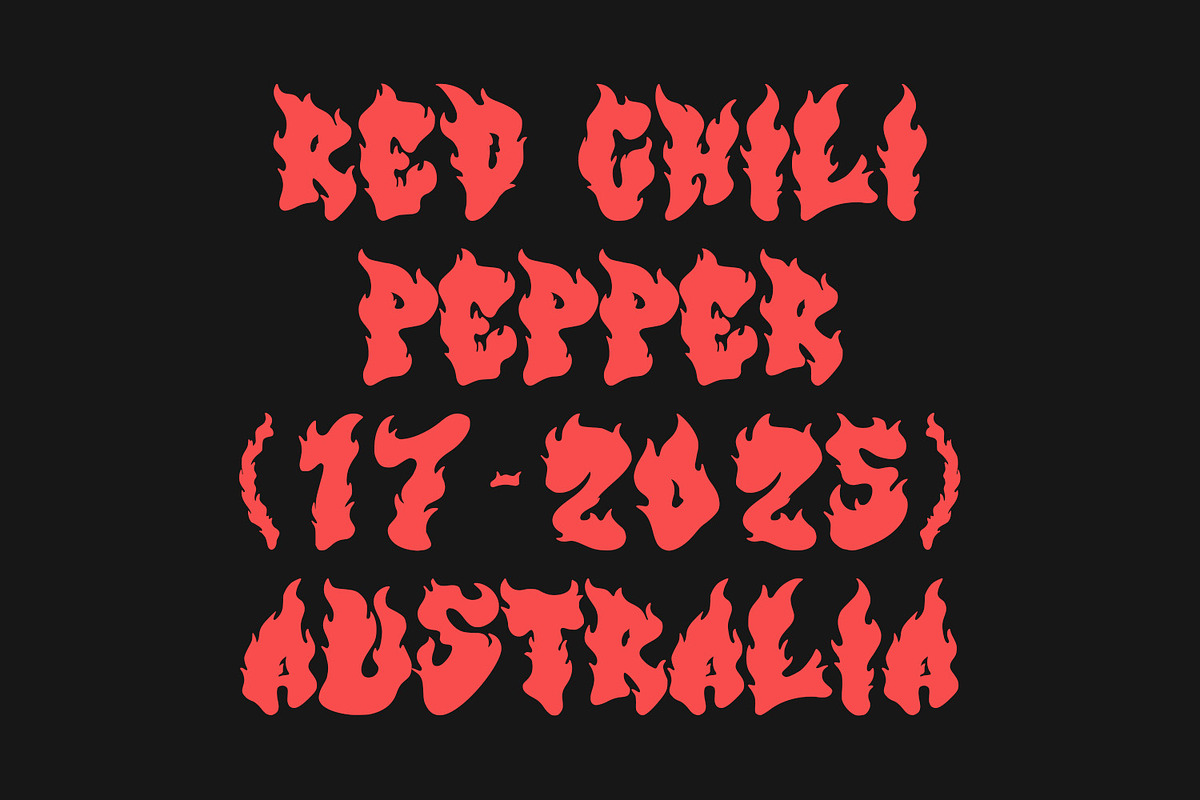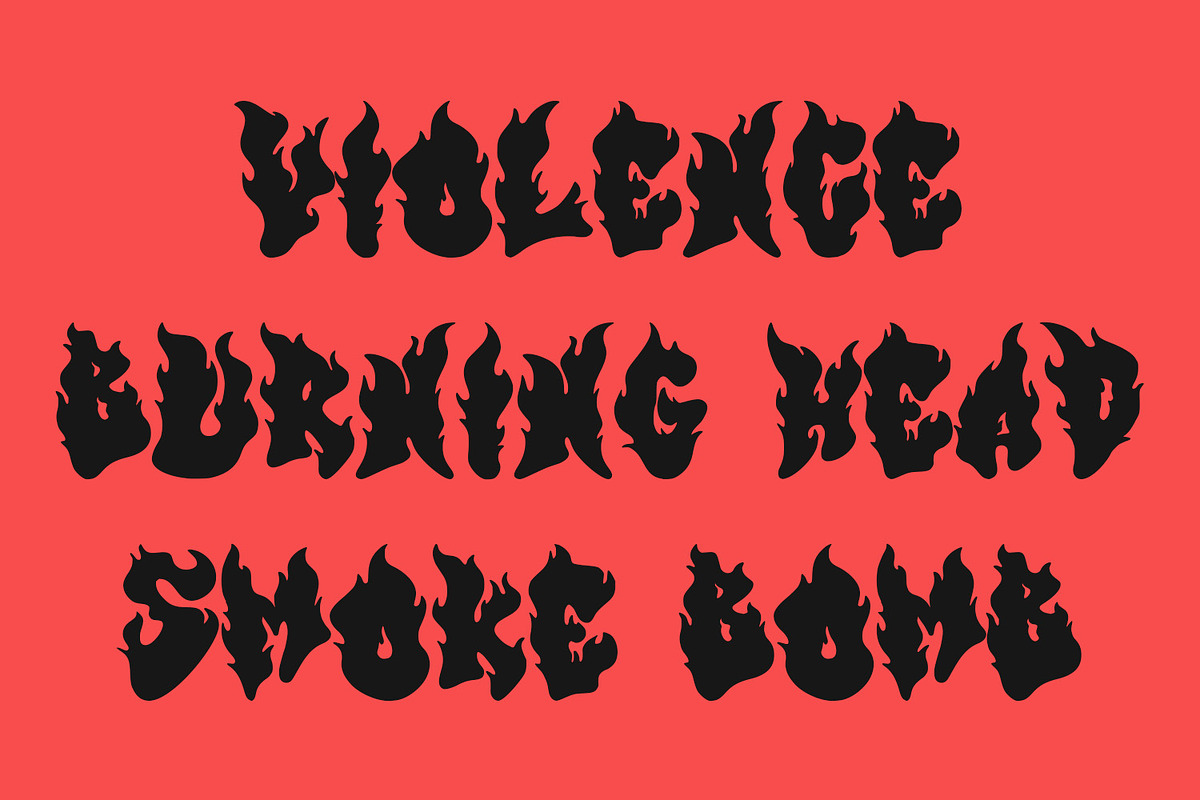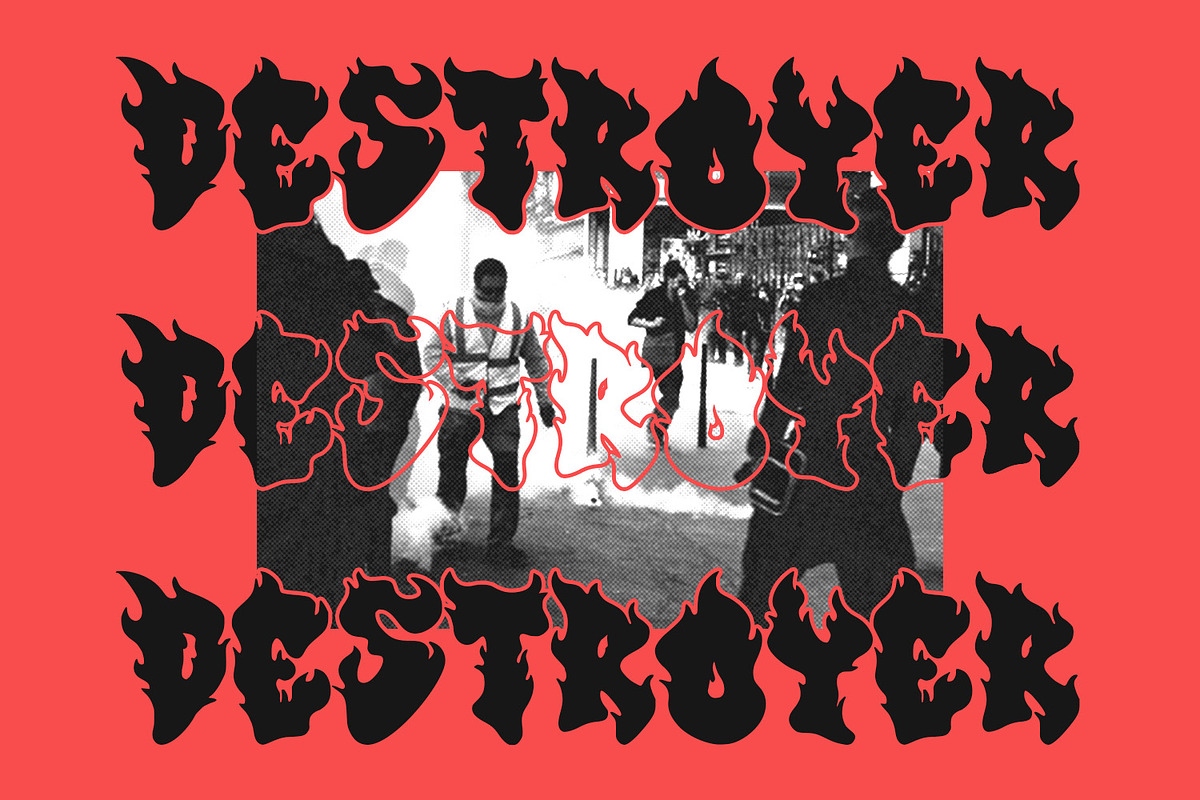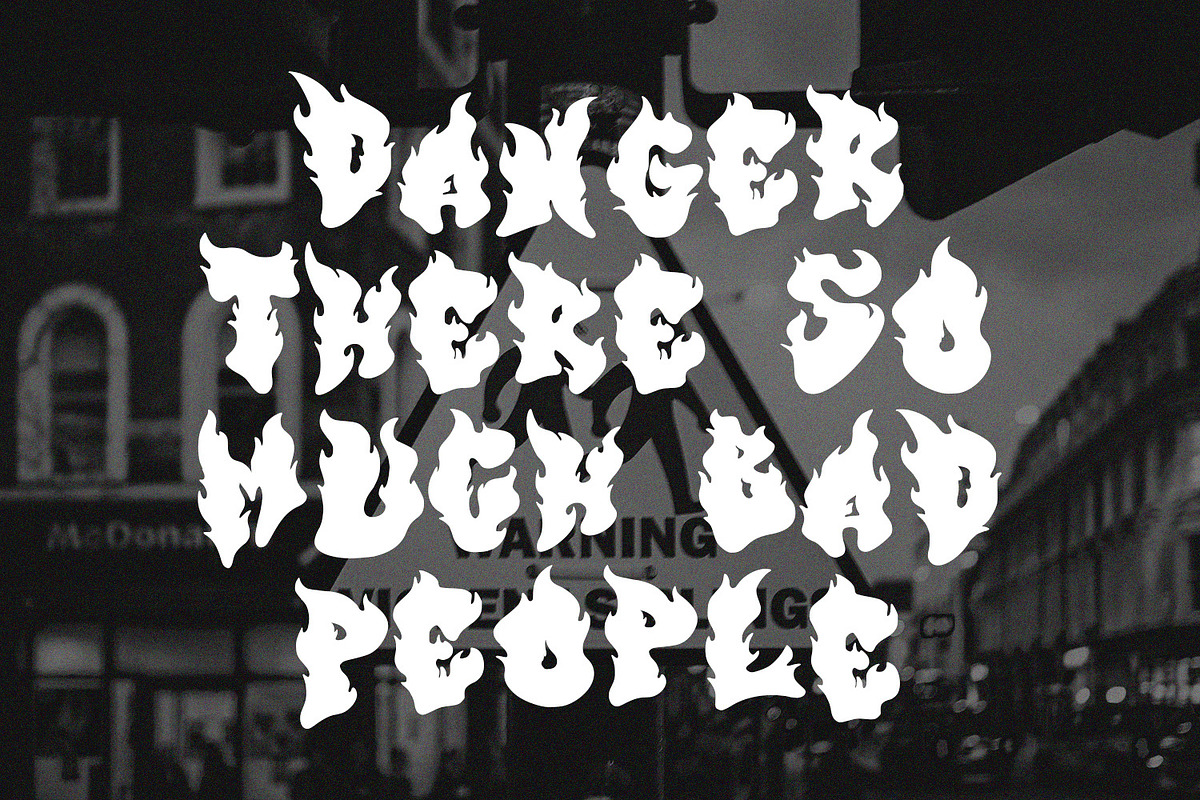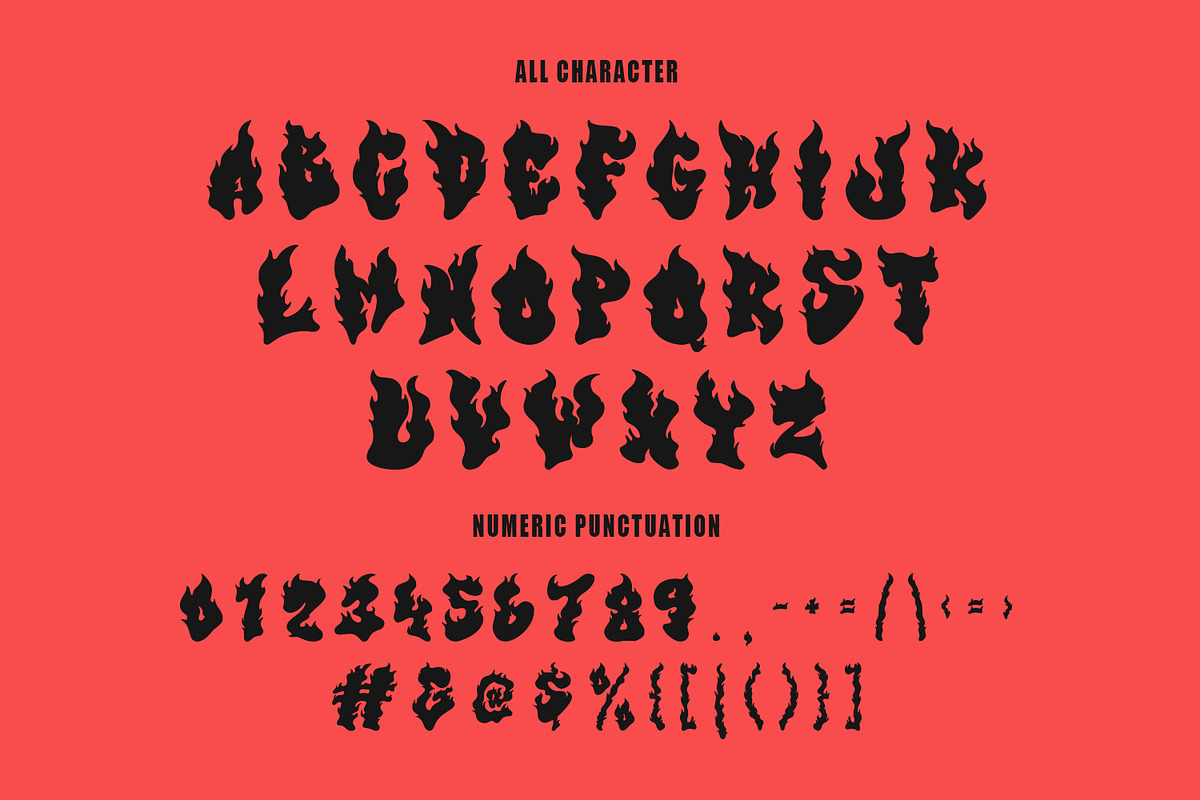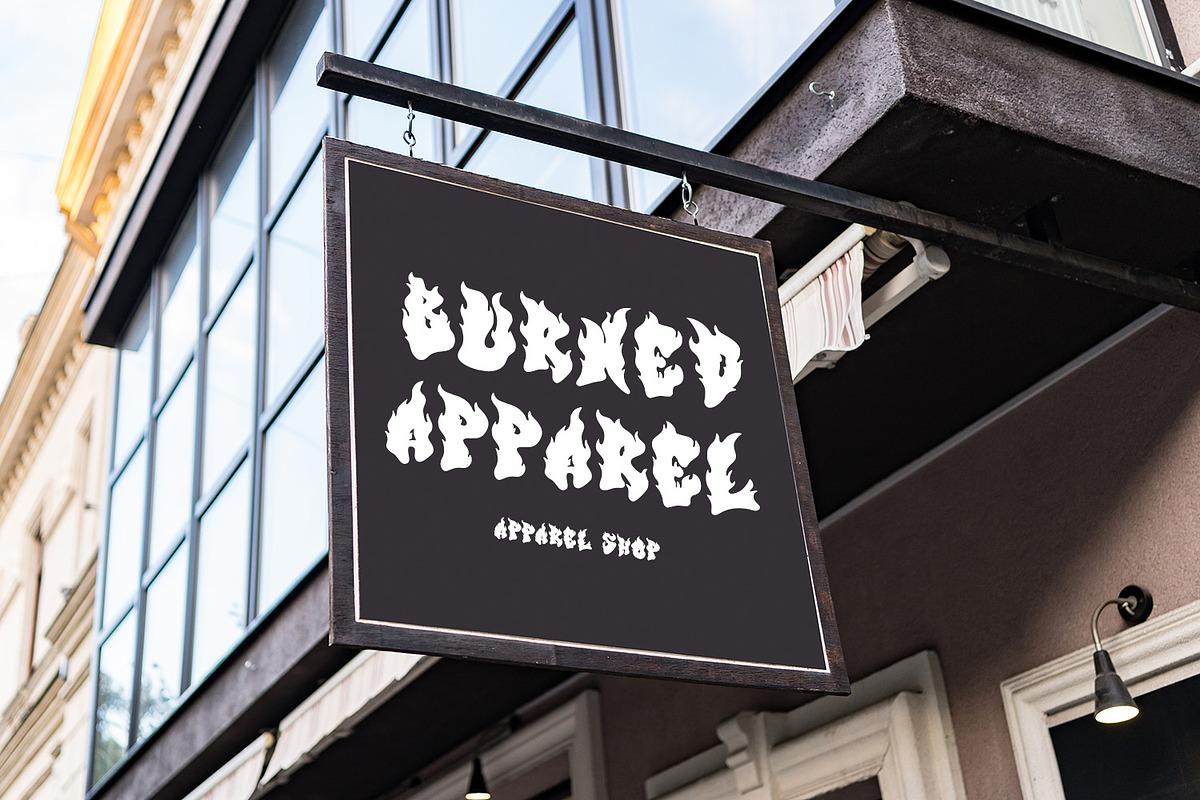
Flamezinna All Caps Flame Display
Flamezinna is a flame graffiti style display font. To give you an extra creative work. Flamezinna font support multilingual more than 100+ language. This font is good for logo design, Social media, Movie Titles, Books Titles, a short text even a long text letter and good for your secondary text font with sans or serif. Make a stunning work with Flamezinna font.